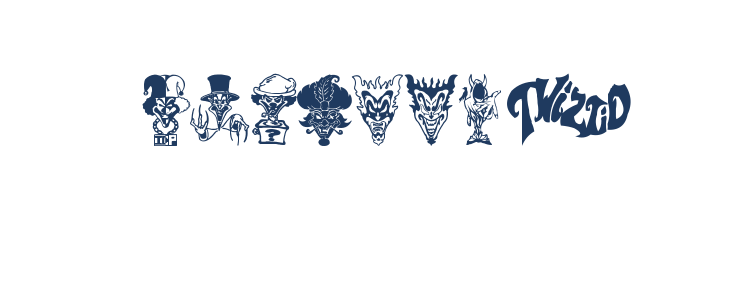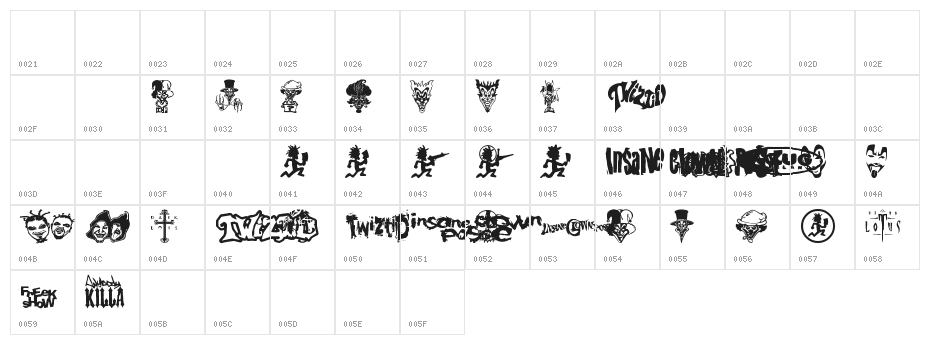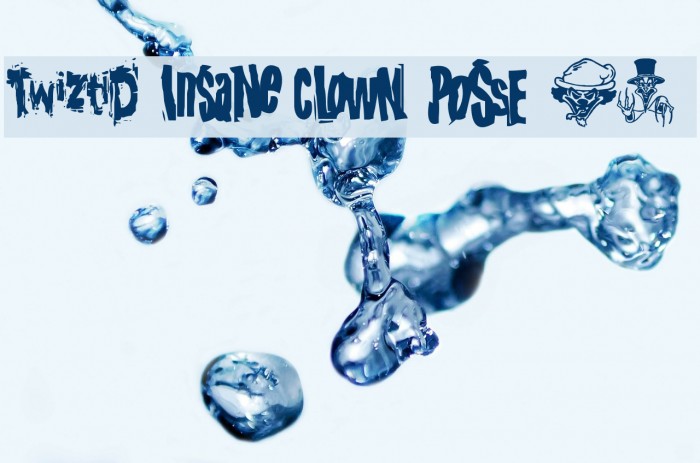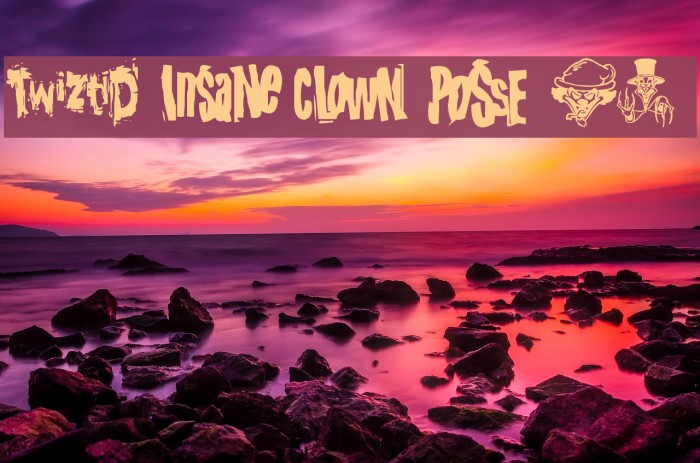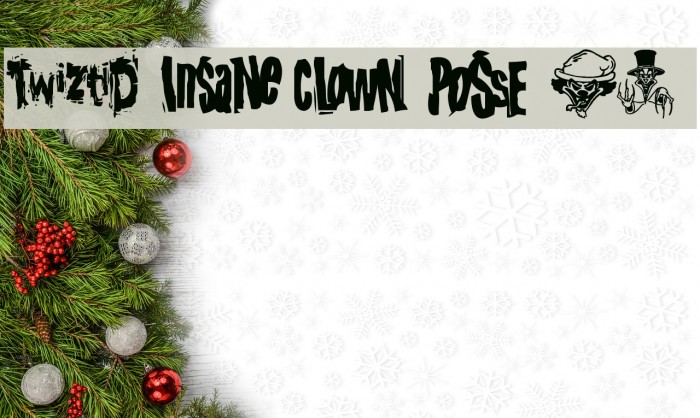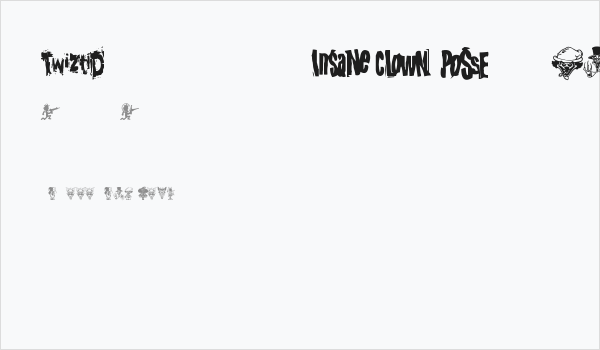
Psychopathic Font V2.0 Font
Psychopathic Font V2.0 Description
This font is a highly decorative and thematic typeface that incorporates elements of horror and carnival aesthetics. The characters are stylized with exaggerated features and intricate details, often resembling masks or faces with a sinister or playful expression. The font includes a variety of symbols and icons that enhance its unique and edgy appearance. It is designed to capture attention and convey a sense of mystery and excitement, making it suitable for projects that require a bold and unconventional look.
| Use Case | Logos, Posters, Album Covers |
| Proposed Projects | Ideal for use in horror-themed events, music album covers, posters for theatrical performances, or any project requiring a bold, eye-catching design. |